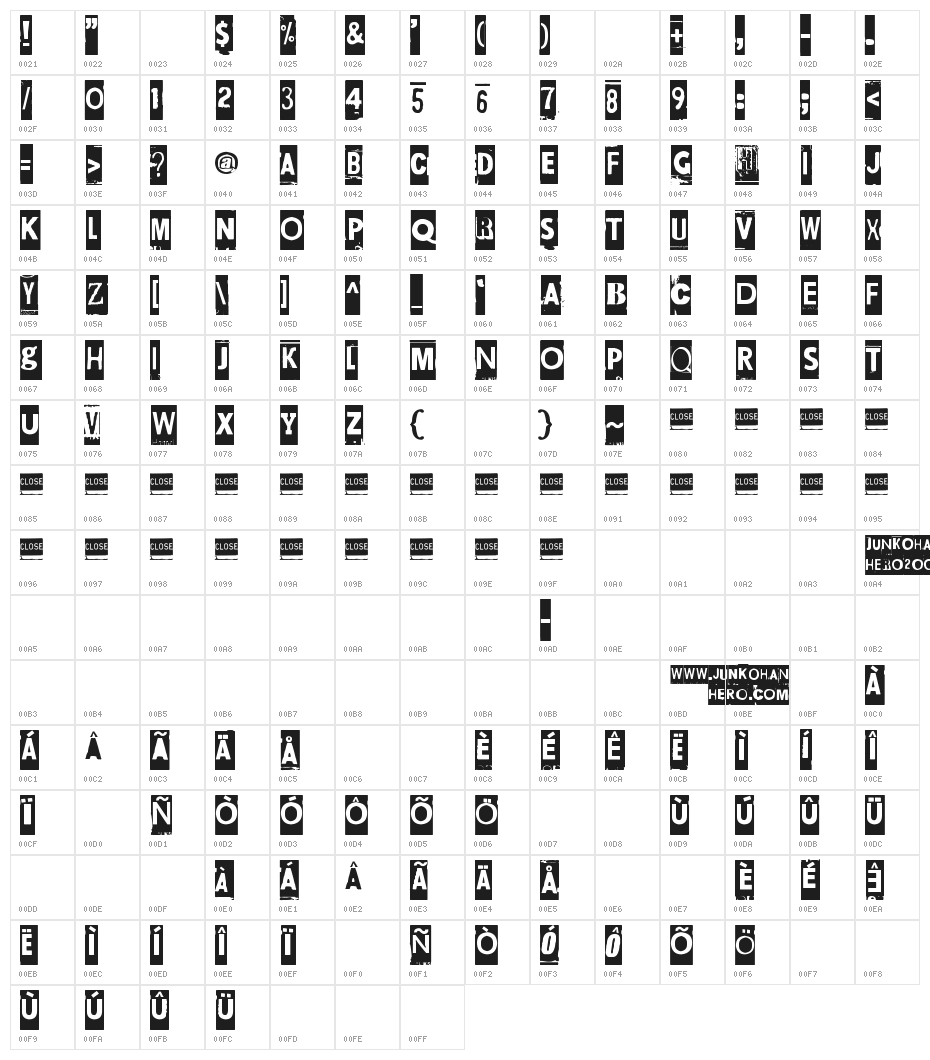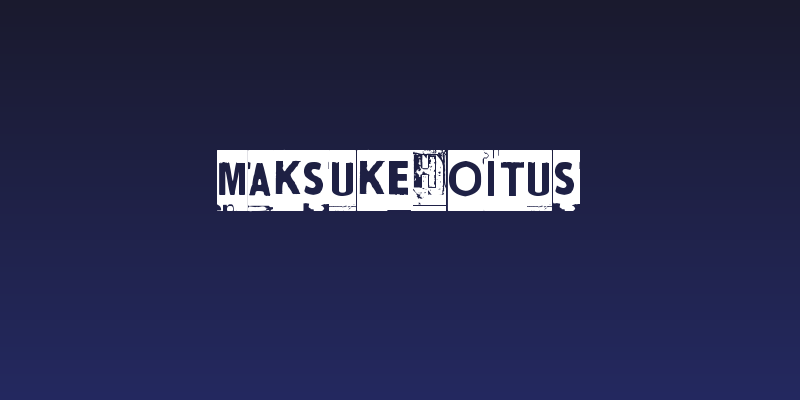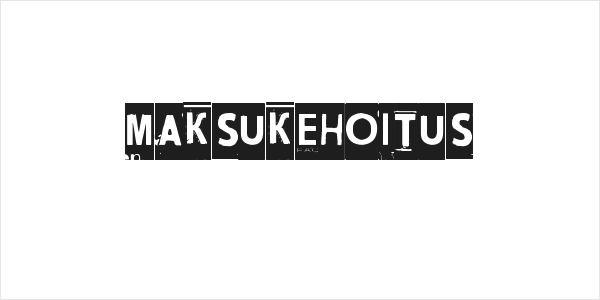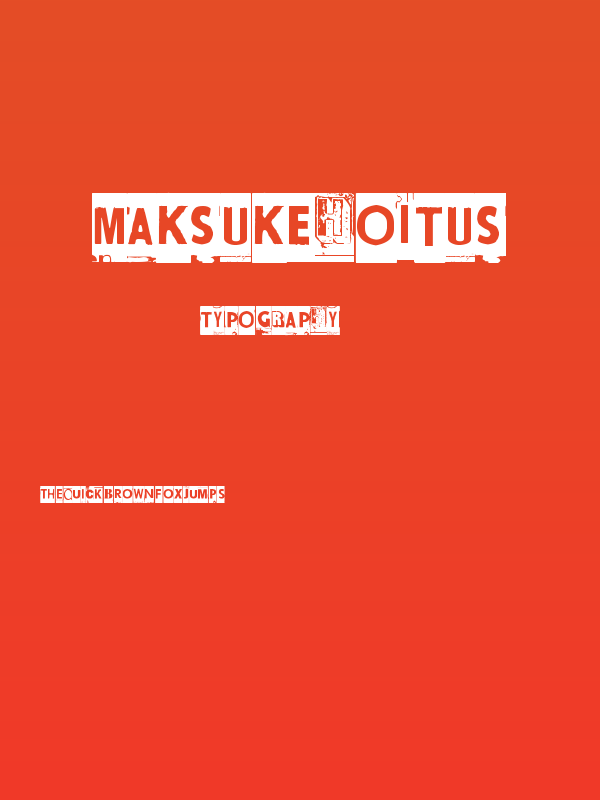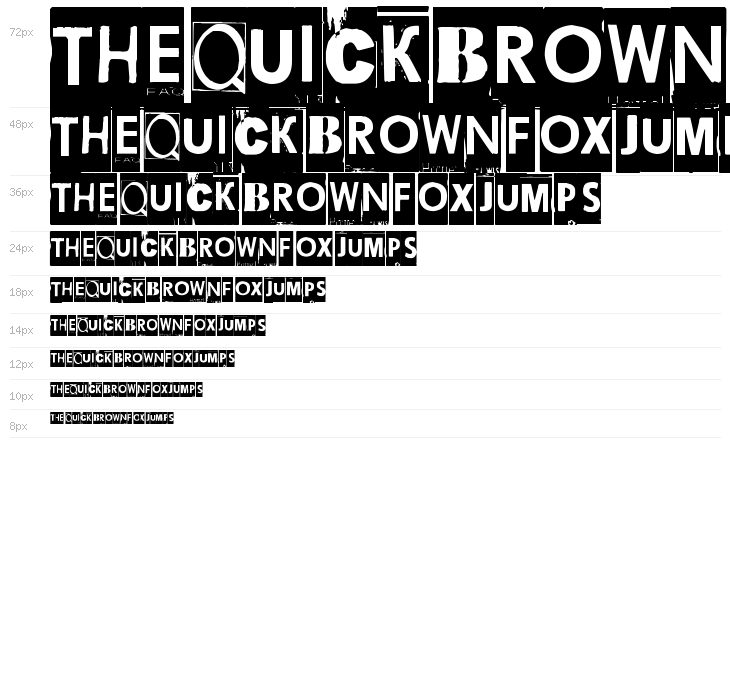
Maksukehoitus Font
Maksukehoitus Description
This font features a distressed, grunge style with a bold and impactful appearance. Each character is enclosed in a square, giving it a unique, cut-out effect. The letters and numbers are bold with a high contrast between the thick strokes and the background. The distressed texture adds a vintage and rugged feel, making it stand out in any design. The uppercase and lowercase letters maintain a consistent style, with the uppercase being more prominent. The numbers and special characters follow the same distressed theme, ensuring uniformity across all elements.
MAKSUKEHOITUS UPPERCASE
MAKSUKEHOITUS LOWERCASE
MAKSUKEHOITUS OTHER CHARS
| Overall Style | Vintage, Grunge |
| Use Case | Headlines, Posters, Album Covers |
| Proposed Projects | Ideal for album covers, posters, and any design needing a bold, vintage touch. |